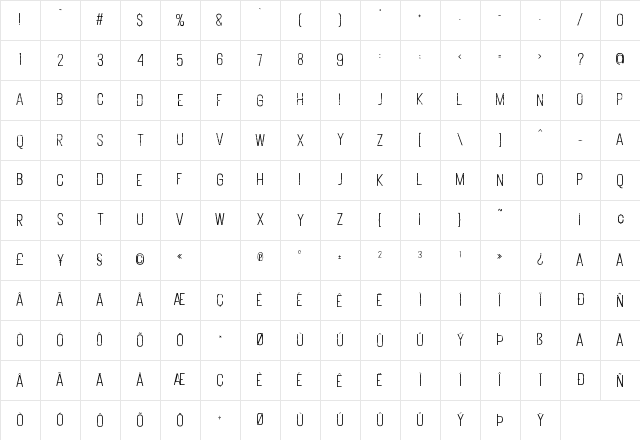
Votrag Texture Light Regular
Design Context for Votrag Texture Light
Votrag Texture Light embraces imperfection - its rough, textured character adds raw authenticity to designs that want to feel lived-in and unconventional.
Pro Tip: Use Votrag Texture Light at larger sizes where the texture and irregularity of each letterform can be clearly seen - it loses its character at small sizes.